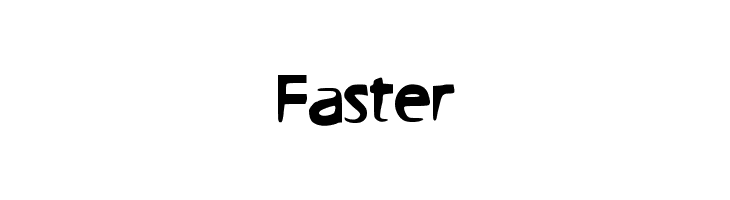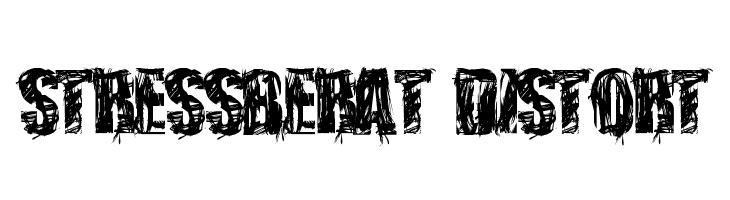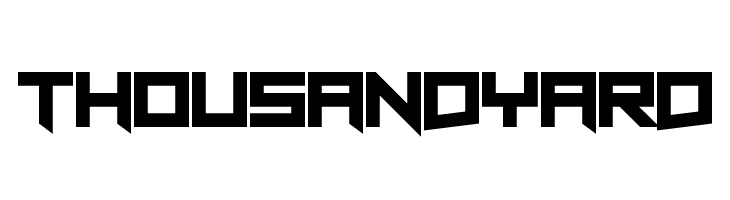
A bold, mystical font with angular, runic-like characters.
( Tim Garrett - www.timgarrett.co.uk )
A modern, geometric font with clean lines and a minimalist style.
A bold, playful font with a 3D shadow effect and cartoonish style.
( LJ Design Studios - www.ljdesignstudios.com )
A bold, distressed font with a grunge, decayed appearance.
( Font by Jonathan Harris - www.tattoowoo.com )
A textured, hand-drawn style font with a playful, energetic feel.
( Fonts by www.braineaters.com )
A spooky, hand-themed font with bold, angular letters perfect for horror designs.
( Fonts by Rodrigo German - RASDESIGN )
A bold, playful icon font with humorous pictograms in rounded squares.
( Font by Jonathan Harris - www.tattoowoo.com )
A bold, distressed font with a fiery, dynamic appearance.